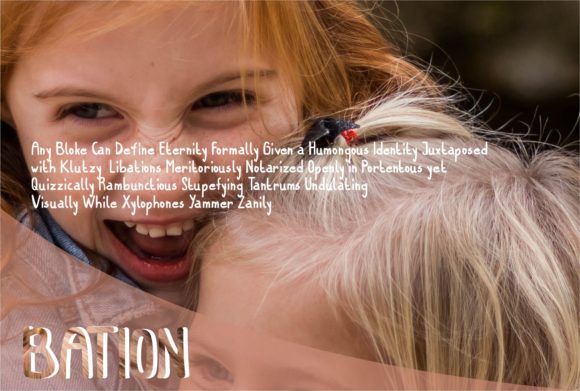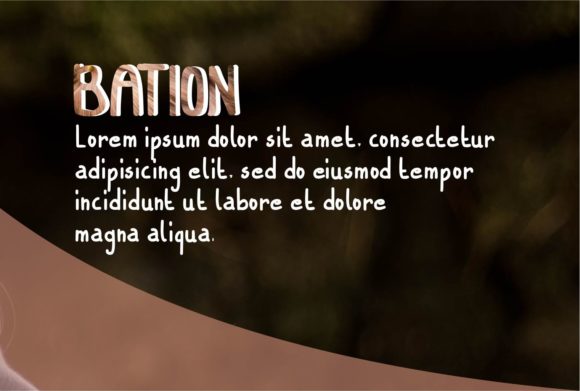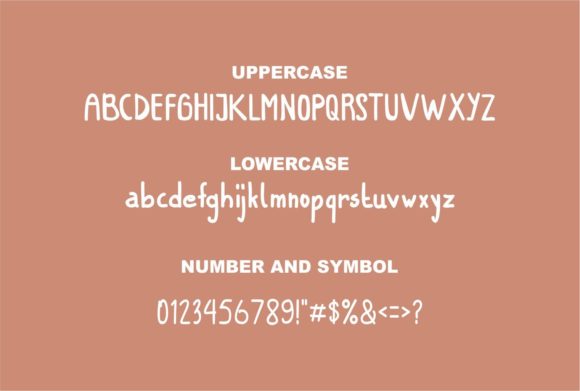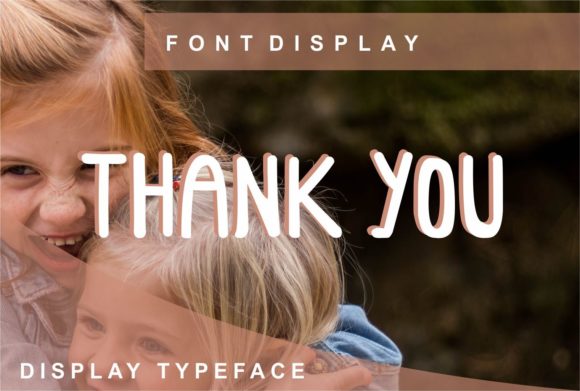
Bation Font: Elevate Your Designs with a Clean and Adaptable Display Font
In the world of typography, a font can make or break a design. A well-chosen font can elevate your creation, adding a touch of sophistication and elegance, while a poorly chosen one can detract from it. For designers and crafters, finding the perfect font can be a daunting task. However, if you’re looking for a versatile and clean display font, look no further than Bation Font.
What is Bation Font?
Bation is a modern, clean, and adaptable display font designed to enhance any creation. Its sleek lines, balanced proportions, and crisp edges make it perfect for a wide range of design applications, from branding and advertising to packaging and digital media. Whether you’re working on a bold headline or a subtle label, Bation Font is a wonderful asset to your font library.
Key Features of Bation Font
- Clean and Minimalist Design: Bation Font boasts a clean and minimalist design, making it perfect for modern designs that require a touch of sophistication.
- Adaptable: This font is highly adaptable, suitable for various design applications, including headings, titles, labels, and more.
- Highly Legible: Bation Font features clear and precise lines, ensuring excellent legibility, even at small sizes.
- Versatile: This font can be used for a wide range of topics, from fashion and beauty to technology and finance.
Benefits of Using Bation Font
So, why choose Bation Font for your designs? Here are just a few benefits:
- Instant Professionalism: Bation Font adds a touch of professionalism to any design, making it perfect for businesses and individuals looking to establish a strong brand identity.
- Enhanced Readability: The clean and clear design of Bation Font ensures that your message is communicated effectively, even in crowded or complex designs.
- Flexibility: With its adaptable nature, Bation Font can be used across various design applications, saving you time and effort in the long run.
- Unique and Creative: Bation Font’s sleek design and balanced proportions make it stand out from more traditional fonts, adding a touch of creativity to your designs.
How to Use Bation Font in Your Designs
- Pair it with Other Fonts: Bation Font works well with other fonts, so don’t be afraid to experiment with different combinations to create a unique look.
- Experiment with Sizes and Colors: Bation Font’s clean design makes it versatile, so try using it in different sizes and colors to add visual interest to your design.
- Use it for Headings and Titles: Bation Font is perfect for headings and titles, adding a touch of sophistication and elegance to your design.